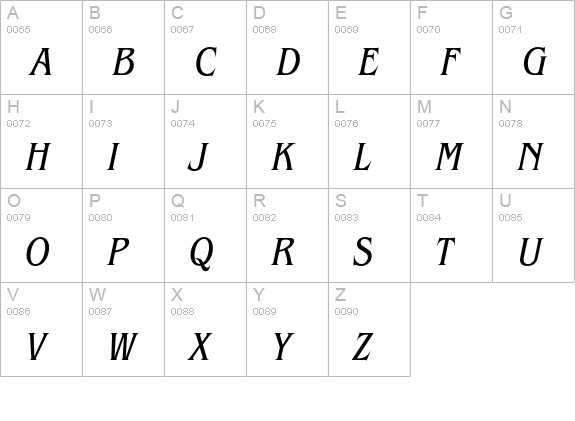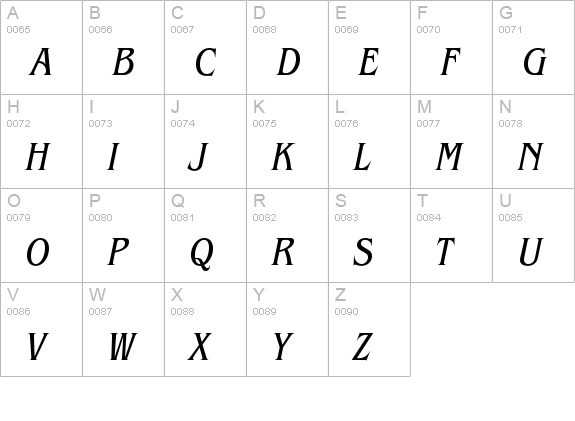
BenguiatEF-BookCondensedIta is a beautifully crafted font that exudes elegance and sophistication. Its sleek and stylish design makes it a perfect choice for projects that require a touch of class. The italicized form adds a sense of movement and dynamism, making it ideal for conveying a sense of creativity and flair. This font is not only visually appealing but also highly versatile, suitable for a wide range of design applications including branding, advertising, and editorial design. Its condensed form allows for efficient use of space, making it a great option for projects that require a sleek and modern look. The best part? BenguiatEF-BookCondensedIta is available for free download at FontsMarket.com, making it easily accessible to designers and creatives looking to add a touch of sophistication to their work. Don't miss out on this opportunity to elevate your designs with this stunning font!